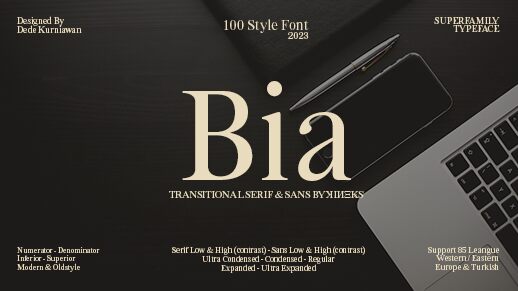
Bia Demo Sans High
Bia Sans High font is a serif typeface that is both stunning and modern. Classified as a transitional serif, it has 100 styles in 85 languages, including many of the Western world and Eastern Europe plus Turkish regions. The range between ultra-condensed and ultra-expanded forms shows off its flexibility nicely. If you’re involved in skincare, jewelry, web design or wedding invitations this superfamily can add an extra luxuriousness to any project.